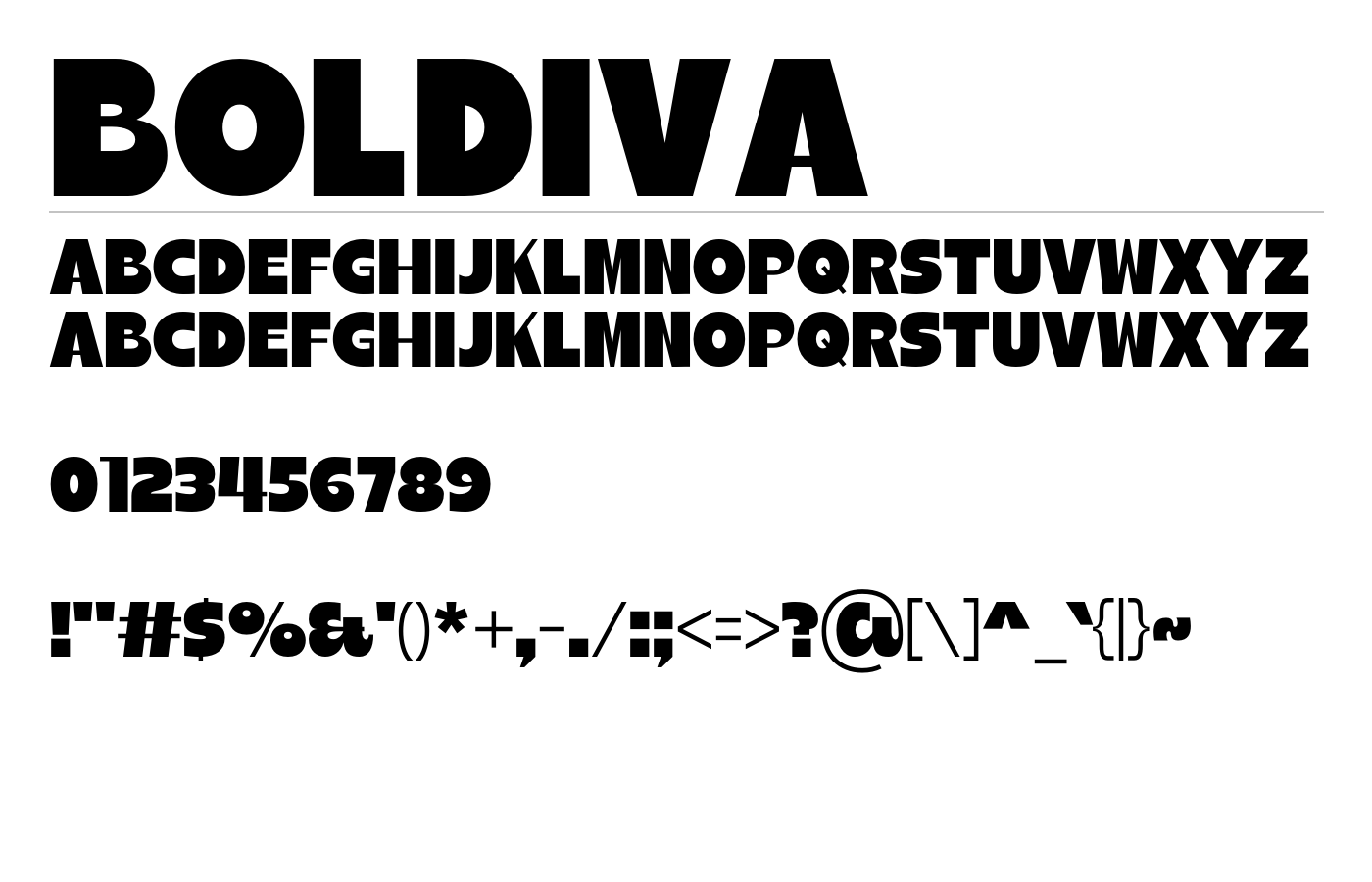
Boldiva is a bold, modern sans serif font with a strong, geometric structure and wide letterforms that command attention. Its high weight and clean, smooth curves give it an impactful, confident personality perfect for headlines, logos, and branding that needs a striking, contemporary look. This font works best in display settings where boldness and clarity take center stage.
Boldiva Font
About Boldiva Font